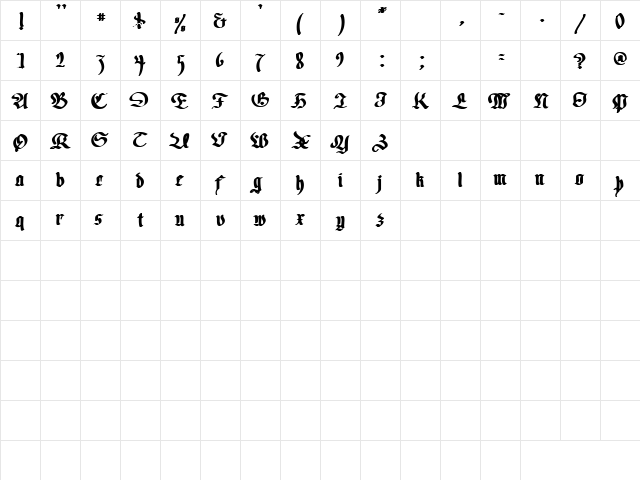
Transylvania 1 Bold
Design Context for Transylvania 1 Typeface
Transylvania 1 is a composed and adaptable typeface that performs quietly and consistently across a wide range of design contexts. Its bold stroke weight gives it real presence on the page.